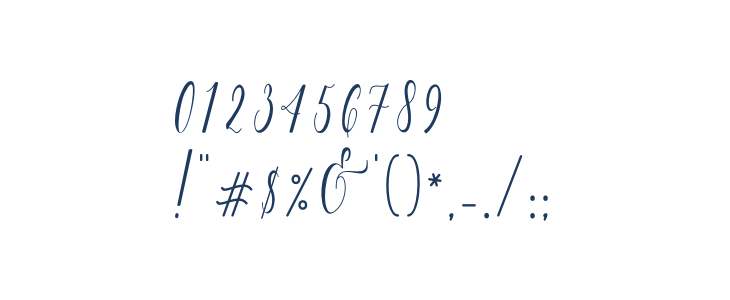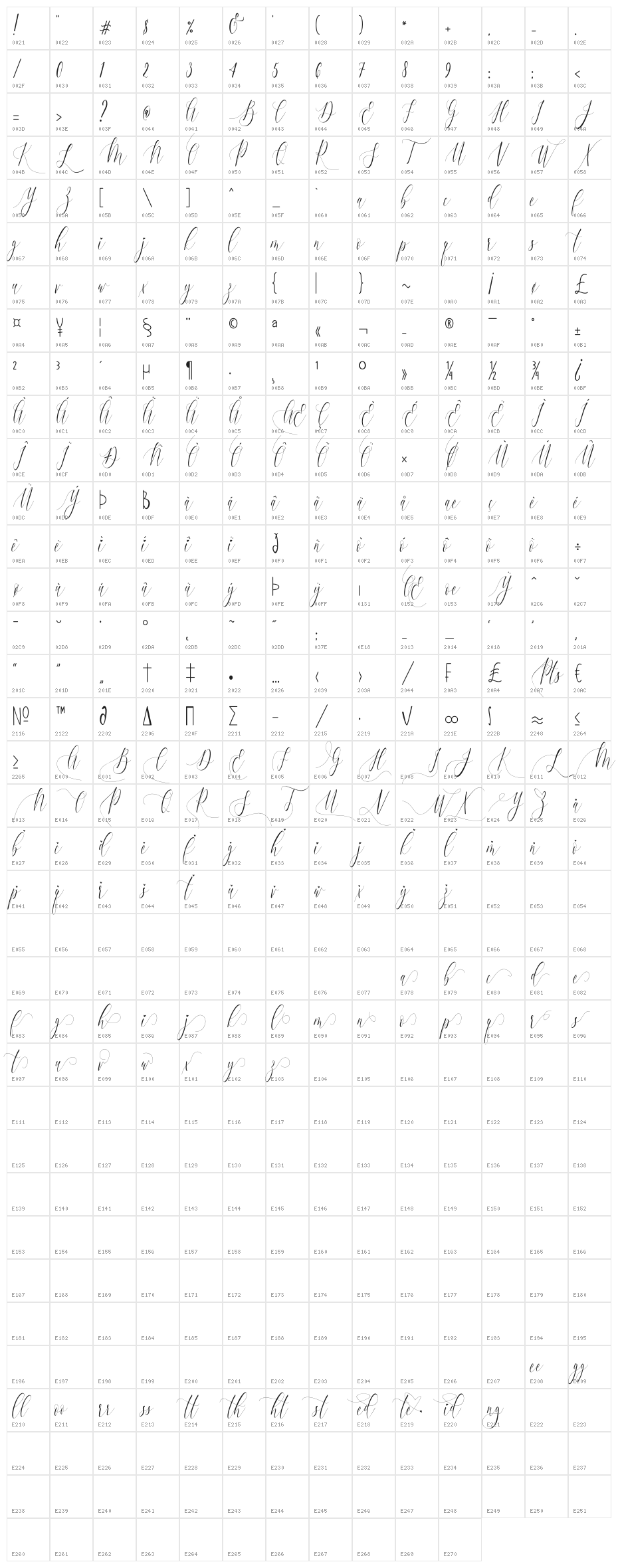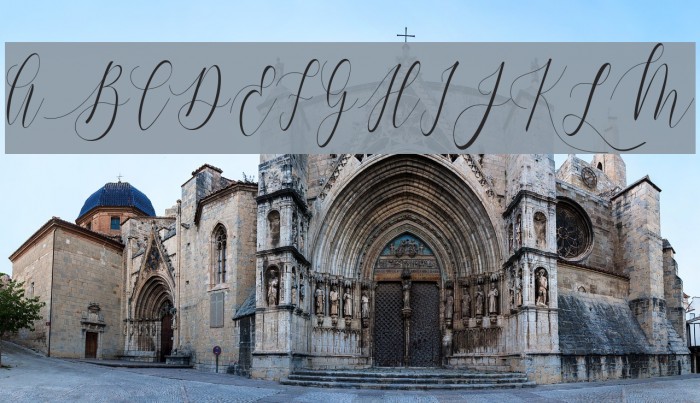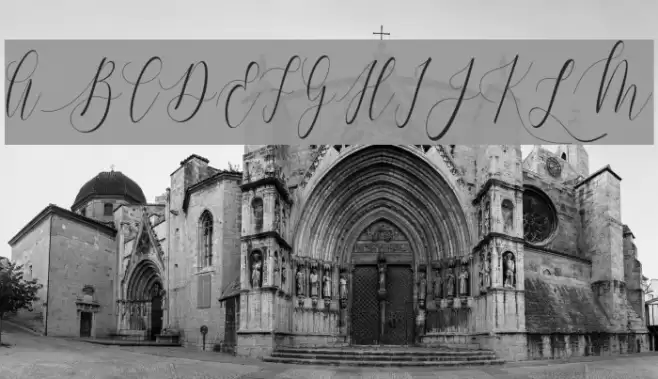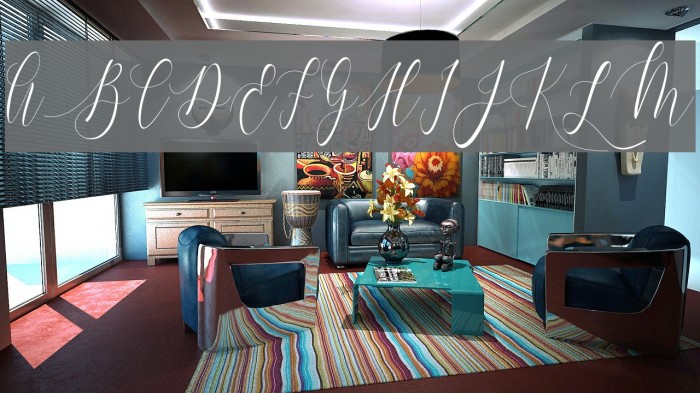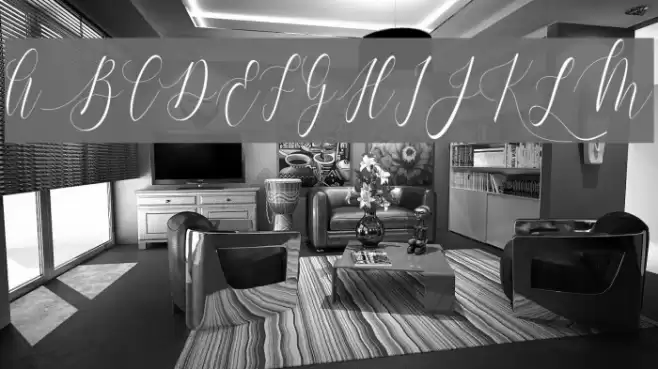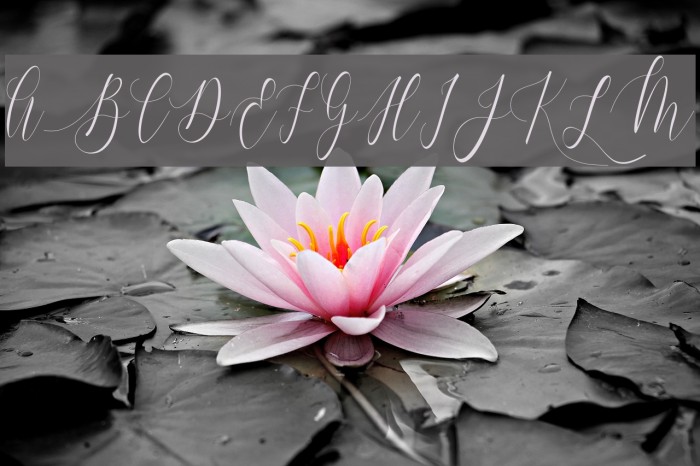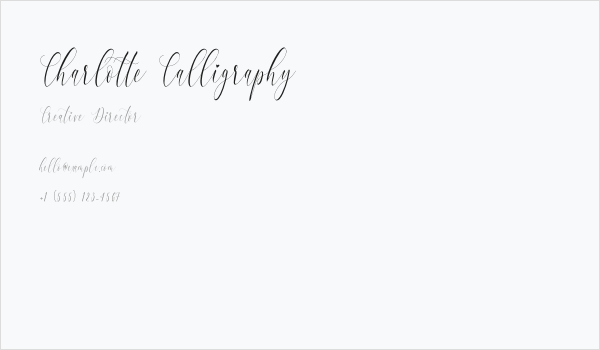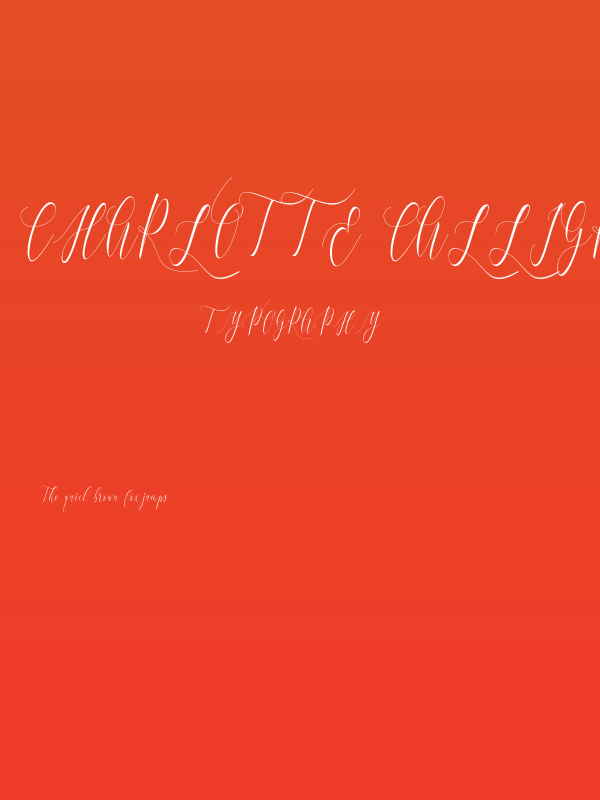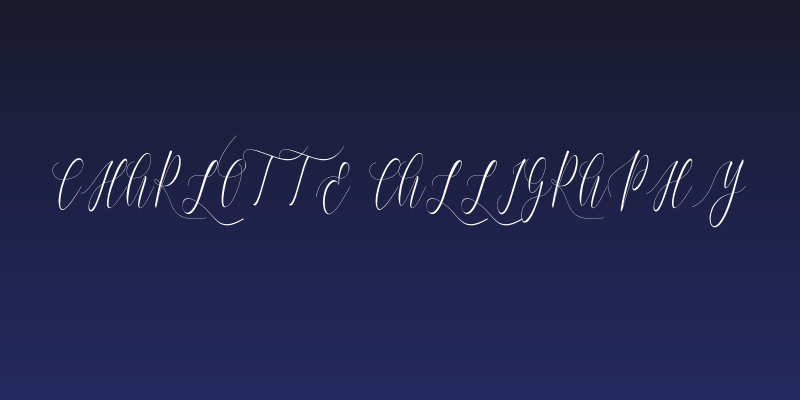
Charlotte Calligraphy Font
Charlotte Calligraphy Description
This elegant calligraphy font features flowing, interconnected strokes that create a sense of movement and grace. The uppercase letters are tall and slender, with delicate loops and flourishes that add a touch of sophistication. The lowercase letters maintain a consistent style, with smooth curves and a slight slant that enhances readability. Numbers and special characters are designed to complement the overall aesthetic, maintaining the same fluidity and elegance. This font is perfect for adding a personal, artistic touch to any project.
| Overall Style | Elegant, Artistic |
| Proposed Projects | Ideal for wedding invitations, greeting cards, branding, and any project requiring a personal, artistic touch. |